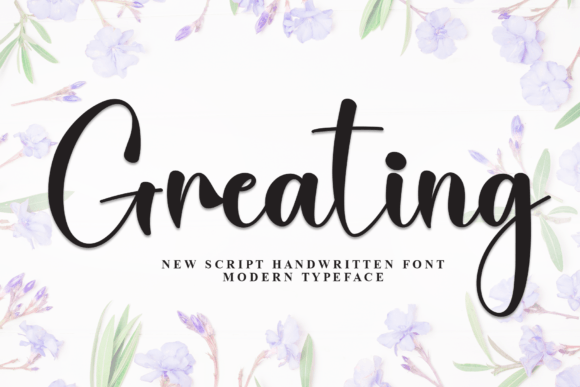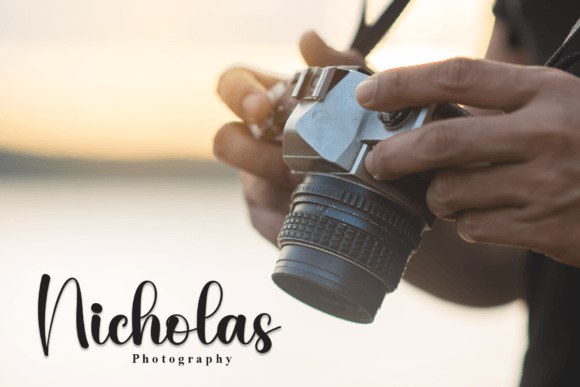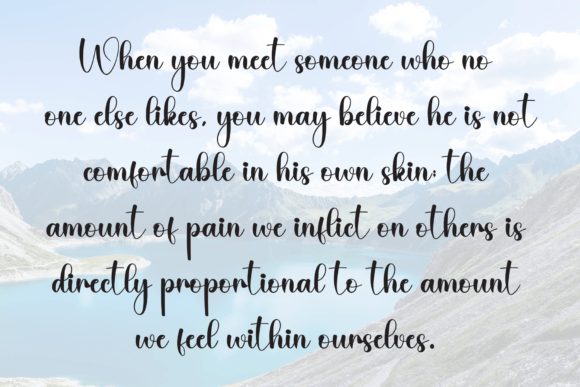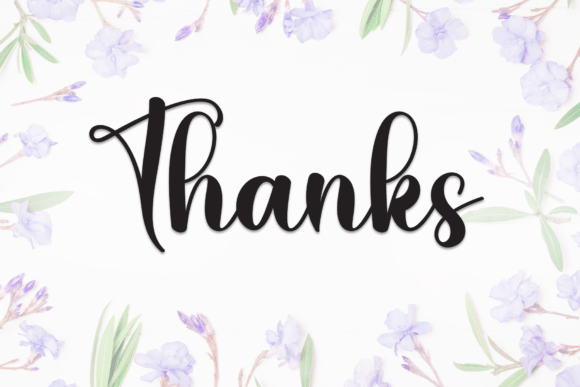
Discover the Joy of Handwritten Style with Greating Font
Have you ever stared at a blank canvas, feeling the urge to create something truly special? You envision a beautiful design that radiates warmth and personality, but you’re not sure where to start. That’s where the magic of handwritten fonts comes in – and Greating Font is one of the most enchanting options out there.
Greating Font is a sweet and friendly handwritten font that’s bursting with natural charm. Its unique style makes it the perfect fit for a wide range of designs, from inviting invitations to whimsical posters. Whether you’re a seasoned designer or just starting out, Greating Font is the perfect tool to help you bring your creative vision to life.
Key Features of “Greating Font”
- Unique Characteristic: Hand-Drawn Style – Greating Font features a hand-drawn style that gives it a unique and personalized touch, making it perfect for creative projects and designs.
- Kerning and Ligatures: Greating Font includes advanced kerning and ligature features, ensuring that text is displayed with perfect spacing and readability.
Designer Review: Greating Font
Overall, I was excited to dive into Greating Font, but my experience was a mixed bag. Let’s start with the positives: ✨ The font’s unique, quirky style is sure to turn heads and add some personality to any design. It’s perfect for brands looking to stand out from the crowd and make a statement. The font’s versatility also shines through in its various weights and styles, making it easy to use across different design applications.
One of the standout features of Greating Font is its excellent legibility. The font is clear and easy to read, even at small sizes, which is a must-have for any font. Additionally, the font’s bold styles are incredibly eye-catching and make a great impact on designs.
- ⚠️ Limited language support: Greating Font seems to be optimized for Latin-based languages, which may limit its use for designers working with languages that require more complex character sets.
- ⚠️ Limited compatibility: Some users have reported issues with Greating Font rendering correctly in certain software and devices.
- ⚠️ Limited font variants: While the font has a good range of weights and styles, it could benefit from more extensive font variant options.
Overall, Greating Font is a great choice for designers looking to add some flair to their designs. However, its limitations may prevent it from being a go-to font for more complex design projects. With a bit more development and expansion, this font has the potential to be a real showstopper.
Tips: Use Greating Font for titles and headings to add a touch of elegance to your design.
Tips: Use Greating Font for typography-heavy designs, such as posters or brochures.
Tips: Use Greating Font for presentations or documents that require a professional and modern look.
Greating Font is ideal for:
- Typography-heavy designs
- Presentations and documents
- Posters and brochures
Remember to use Greating Font in moderation to avoid overwhelming your design.